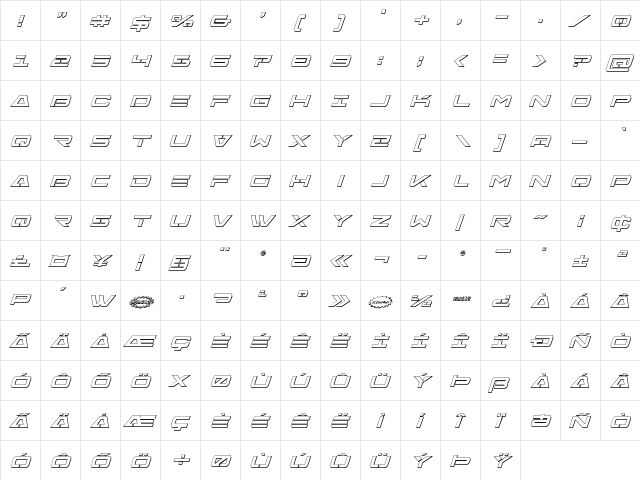
Free Agent Bold 3D Italic Italic Font Preview
Design Context for Free Agent Bold 3D Italic Typeface
Free Agent Bold 3D Italic is a composed and adaptable typeface that performs quietly and consistently across a wide range of design contexts. The dynamic lean of this cut emphasises speed and emphasis in any layout. Its bold stroke weight gives it real presence on the page.